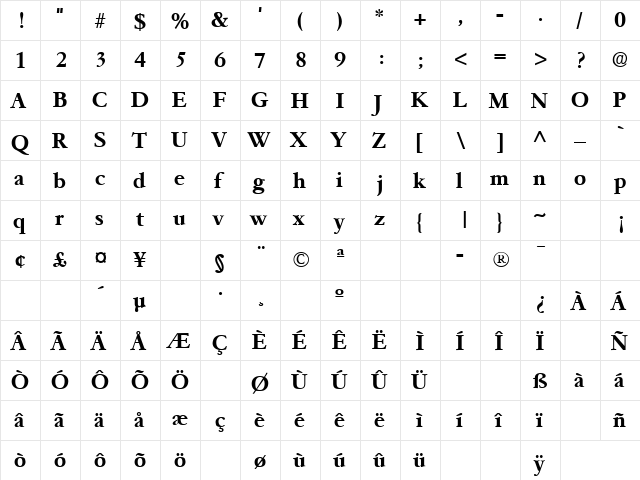
Algonquin Bold Regular Font Preview
Algonquin Bold Regular
Design Context for Algonquin Bold Typeface
Algonquin Bold takes a measured approach to typography — its balanced proportions and neutral character make it a reliable workhorse for both digital and print work. The heavy weight commands attention and anchors typographic hierarchies.